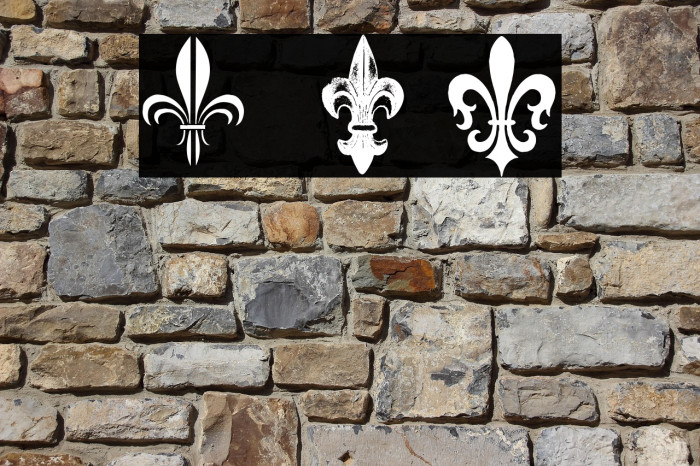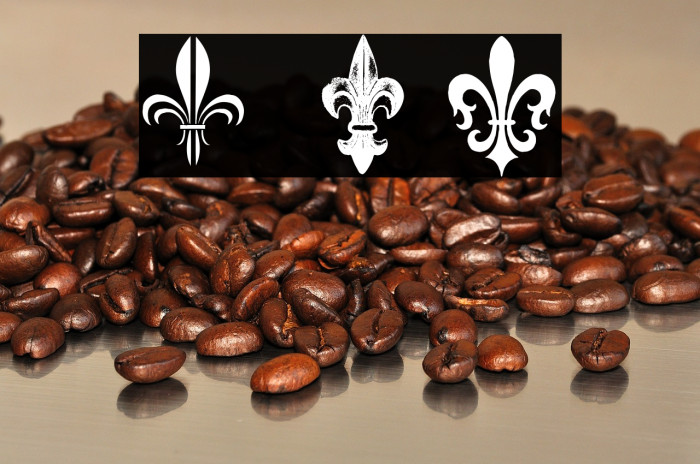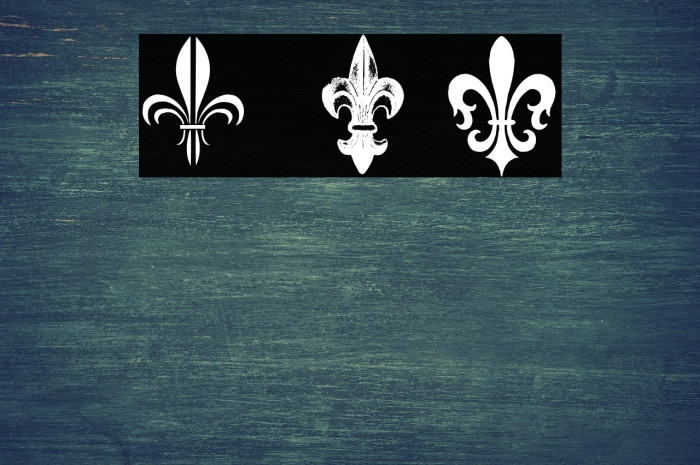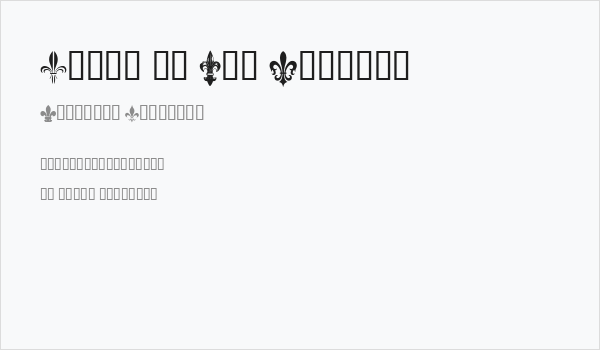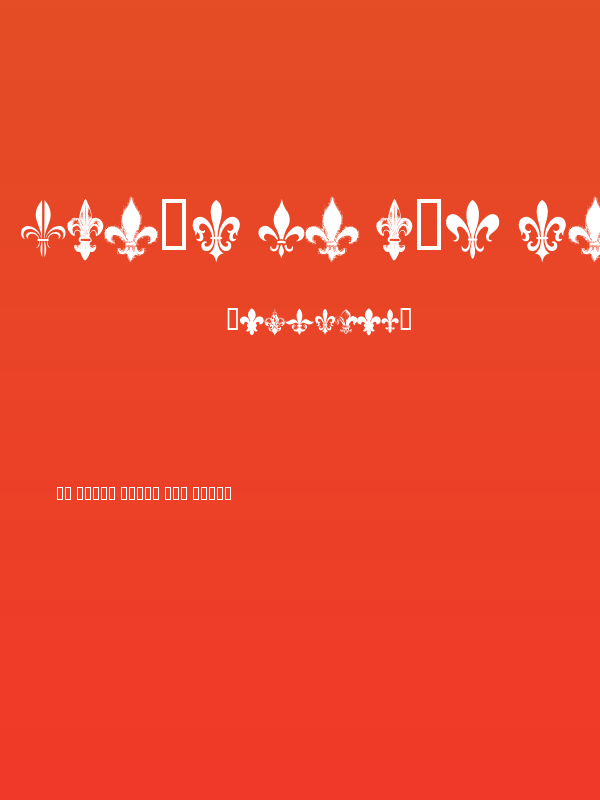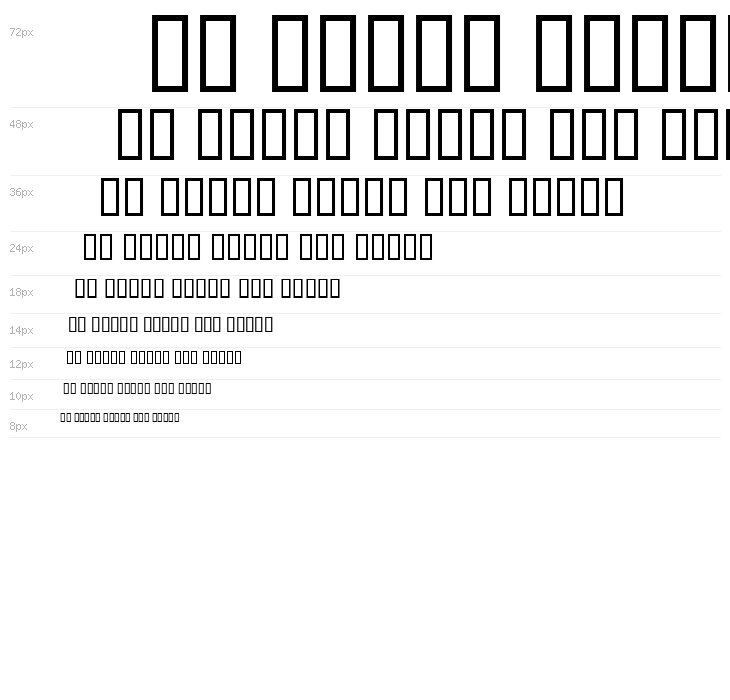
Fleur de Lys Regular Font
Fleur de Lys Regular Description
A decorative dingbat font featuring a variety of fleur-de-lys symbols in different styles and textures, ranging from ornate and detailed to bold and simplified silhouettes.
| Overall Style | Decorative, Heraldic, Vintage |
| Use Case | Logos, Decorative elements, Borders, Themed graphics |
| Proposed Projects | Invitations, certificates, heraldic designs, branding, decorative borders, and themed event materials. |